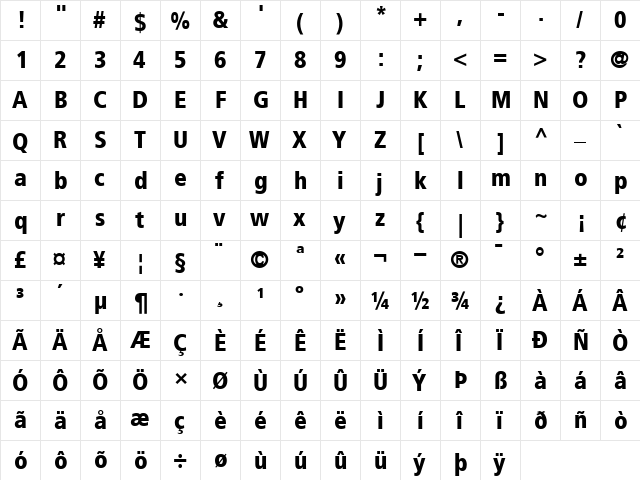
Frutiger77-CondensedBlack Black
Design Context for Frutiger77-CondensedBlack Typeface
Frutiger77-CondensedBlack takes a measured approach to typography — its balanced proportions and neutral character make it a reliable workhorse for both digital and print work. Its narrow stance lets it pack a punch even in space-constrained designs.